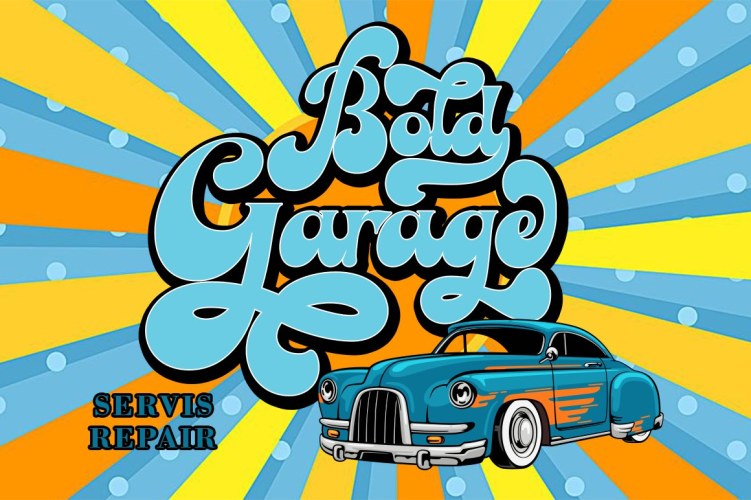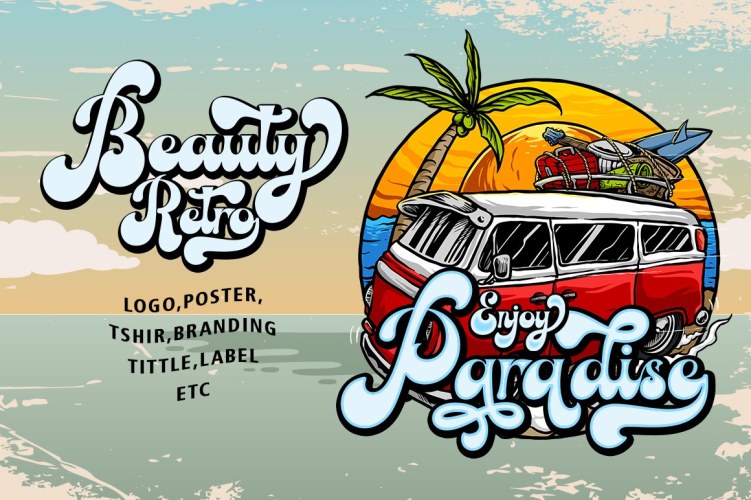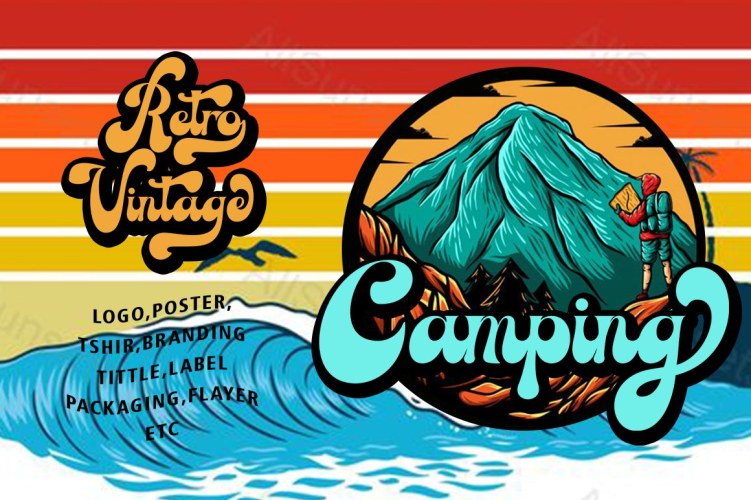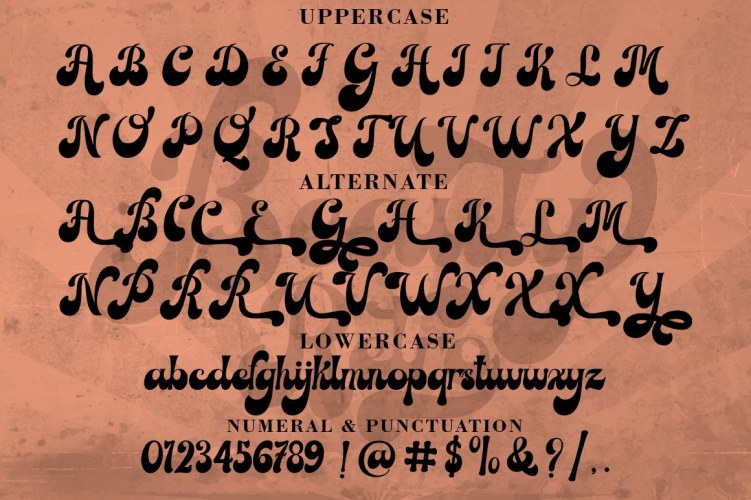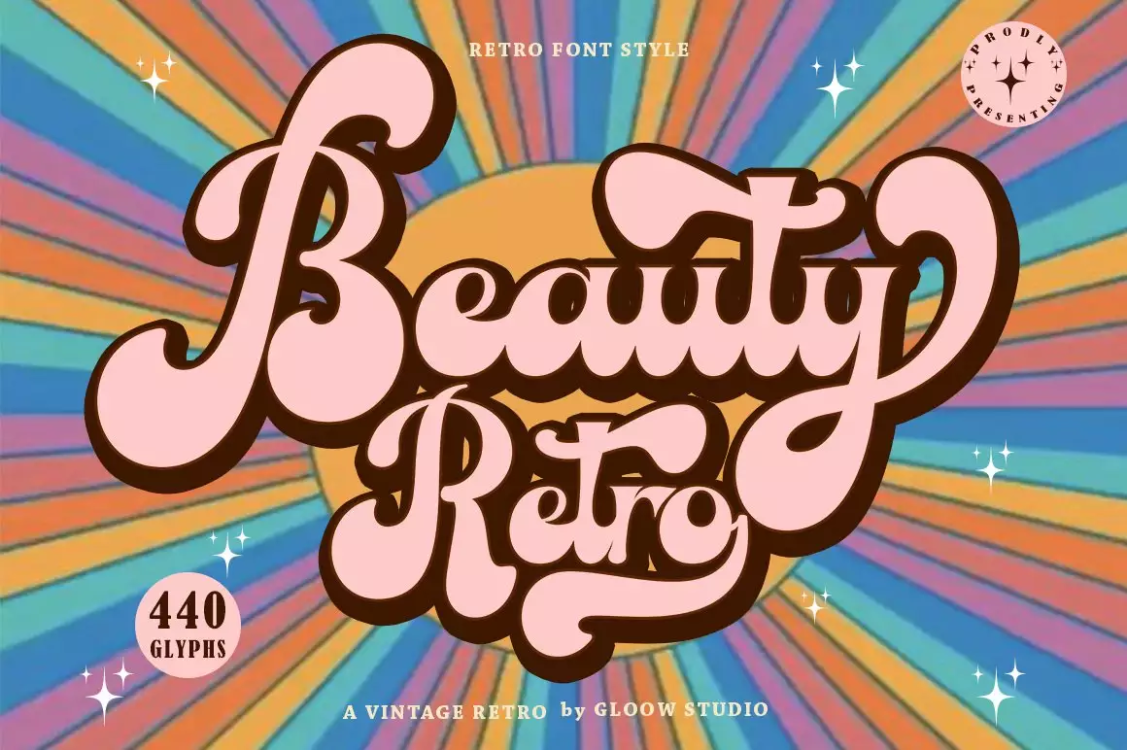
Beauty Retro Font
Beauty Retro Font is a Retro Script Font with a Bold style. It’s perfect for branding, wedding invitations, photography, Neon Sign, bloggers, logos, greeting cards, Logo, Quotes, Poster and more.
Beauty Retro Font is a Script And Handwritten font that brings a professional and versatile look to your projects. Beauty Retro Font is a Retro Script Font with a Bold style.